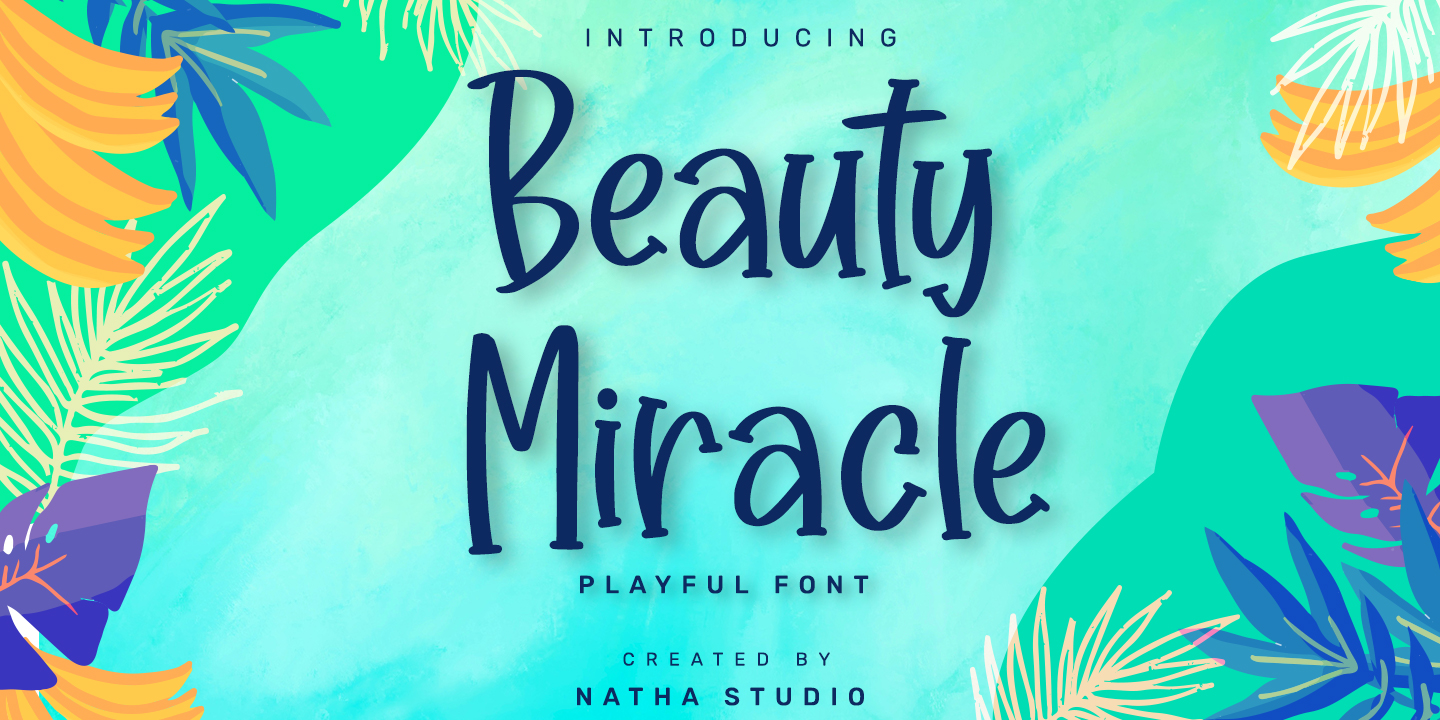
Beauty Miracle Font is perfect for luxury skincare branding, transformative beauty salons, miraculous cosmetics packaging, premium wellness spas, divine beauty treatments, magical makeover services, heavenly beauty product labels, radiant lifestyle magazines, and glowing social media campaigns. This enchanting typeface brings miraculous transformation and divine beauty to both digital and print design applications.
Beauty Miracle Font is exciting because it embodies the magical transformation and divine radiance of extraordinary beauty, making it an exceptional choice for designers who want to convey miraculous results with authentic beauty appeal. Its luminous letterforms and transformative character provide the perfect combination of divine elegance and miraculous functionality, ensuring your projects communicate transformation, radiance, and beauty excellence that resonates with audiences seeking genuine miraculous experiences and divine beauty solutions.
The Beauty Miracle Font family includes radiant weight variations and miraculous elements, featuring light, regular, and bold weights with complementary glowing styles, transformative ligatures, and divine decorative flourishes. Each style maintains consistent miraculous aesthetics while offering flexibility for different beauty applications, allowing designers to create luminous visual systems that reflect transformation values and divine sophistication.
Whether you're designing for beauty brands, wellness companies, or transformation projects, Beauty Miracle Font Free Download delivers authentic miraculous appeal and divine sophistication that connects with audiences seeking genuine transformation experiences and beauty excellence. This premium typeface offers designers the divine elegance and miraculous charm needed to create designs that communicate beauty transformation, radiant wellness, and miraculous authenticity effectively. The font's luminous character makes it perfect for beauty branding, transformation campaigns, and miraculous applications where authentic divine credibility is essential. Download Beauty Miracle Font today and transform your creative projects with genuine divine sophistication and miraculous typography excellence that defines beauty design standards.